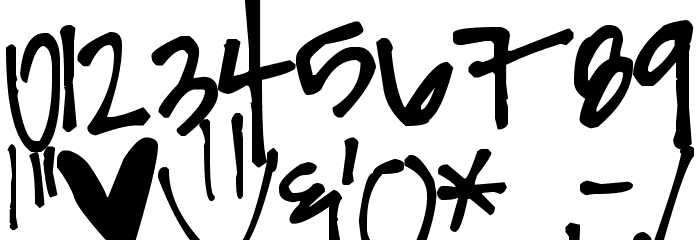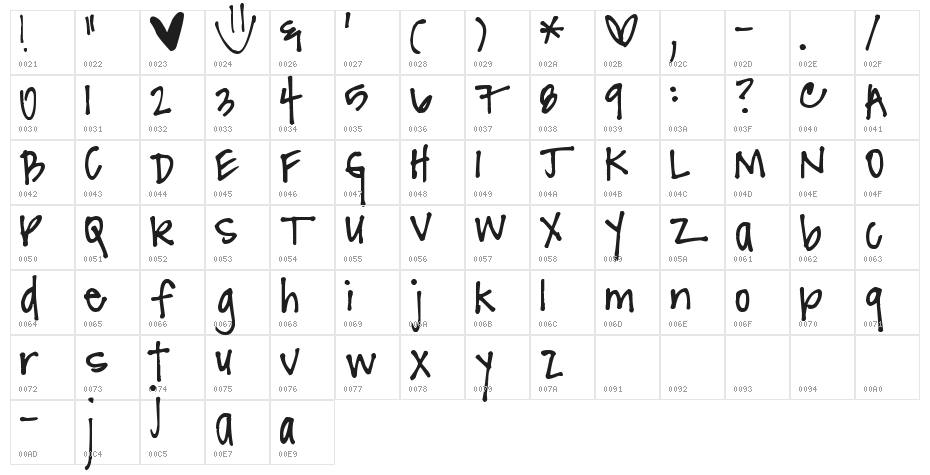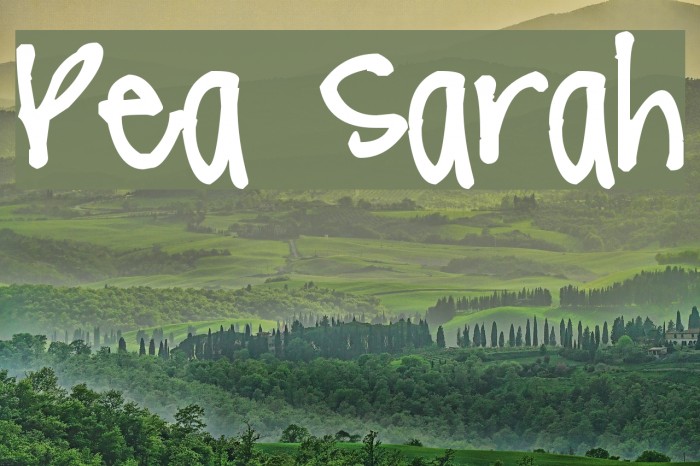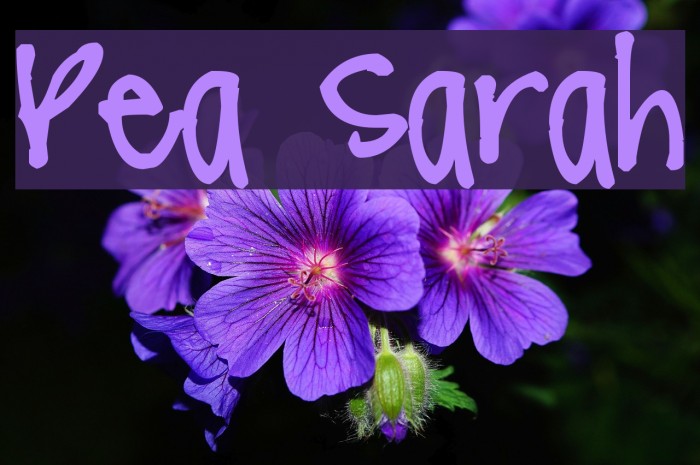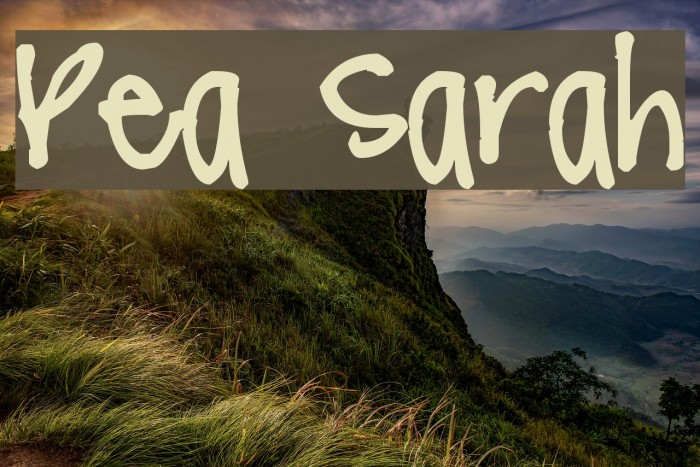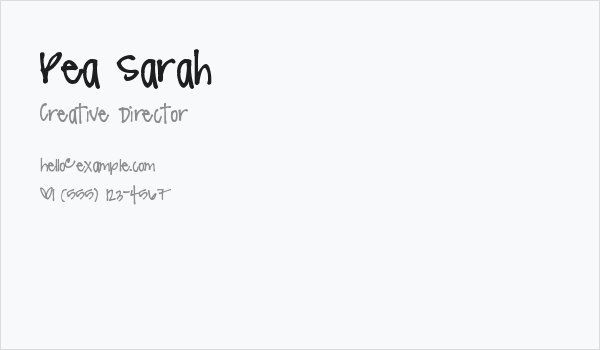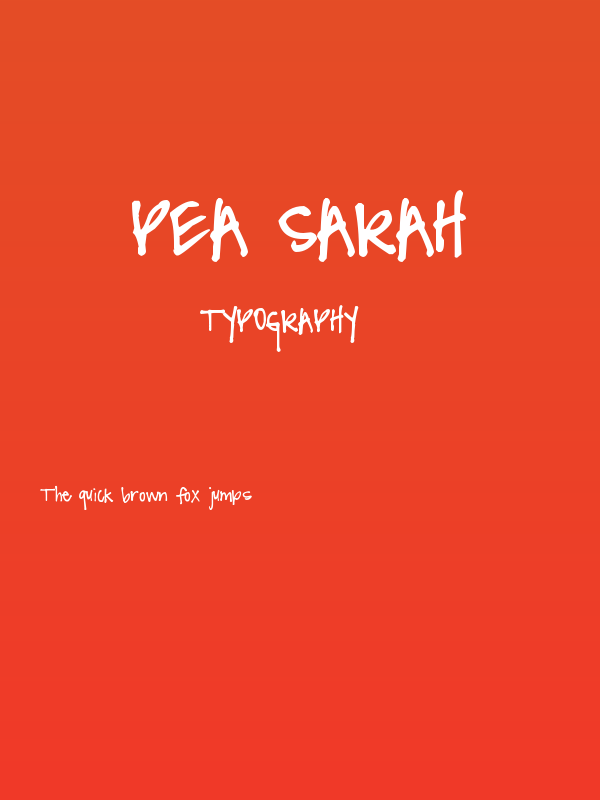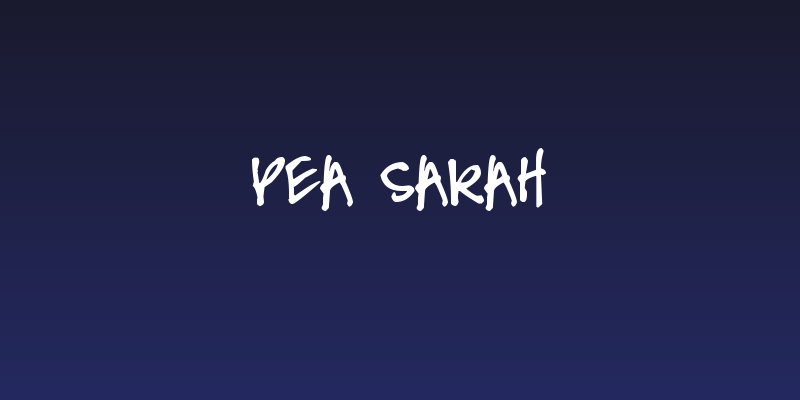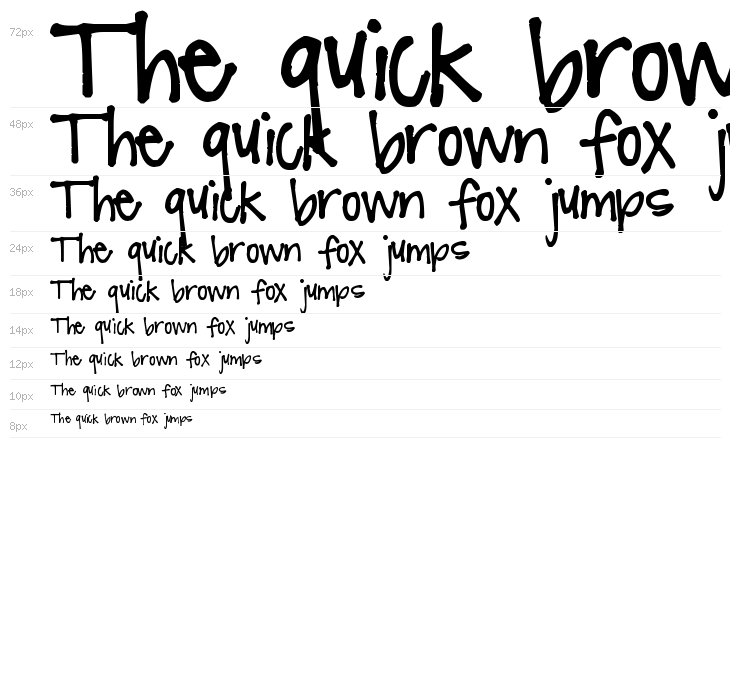
Pea Sarah Font
Pea Sarah Description
This font exudes a playful and casual handwritten style, characterized by its bold and slightly irregular strokes. The letters have a lively, organic feel, with varying heights and widths that add to its charm. The uppercase and lowercase letters maintain a consistent style, while the numbers and special characters complement the overall look with their quirky, hand-drawn appearance. The font's informal nature makes it ideal for projects that require a personal touch or a creative flair.